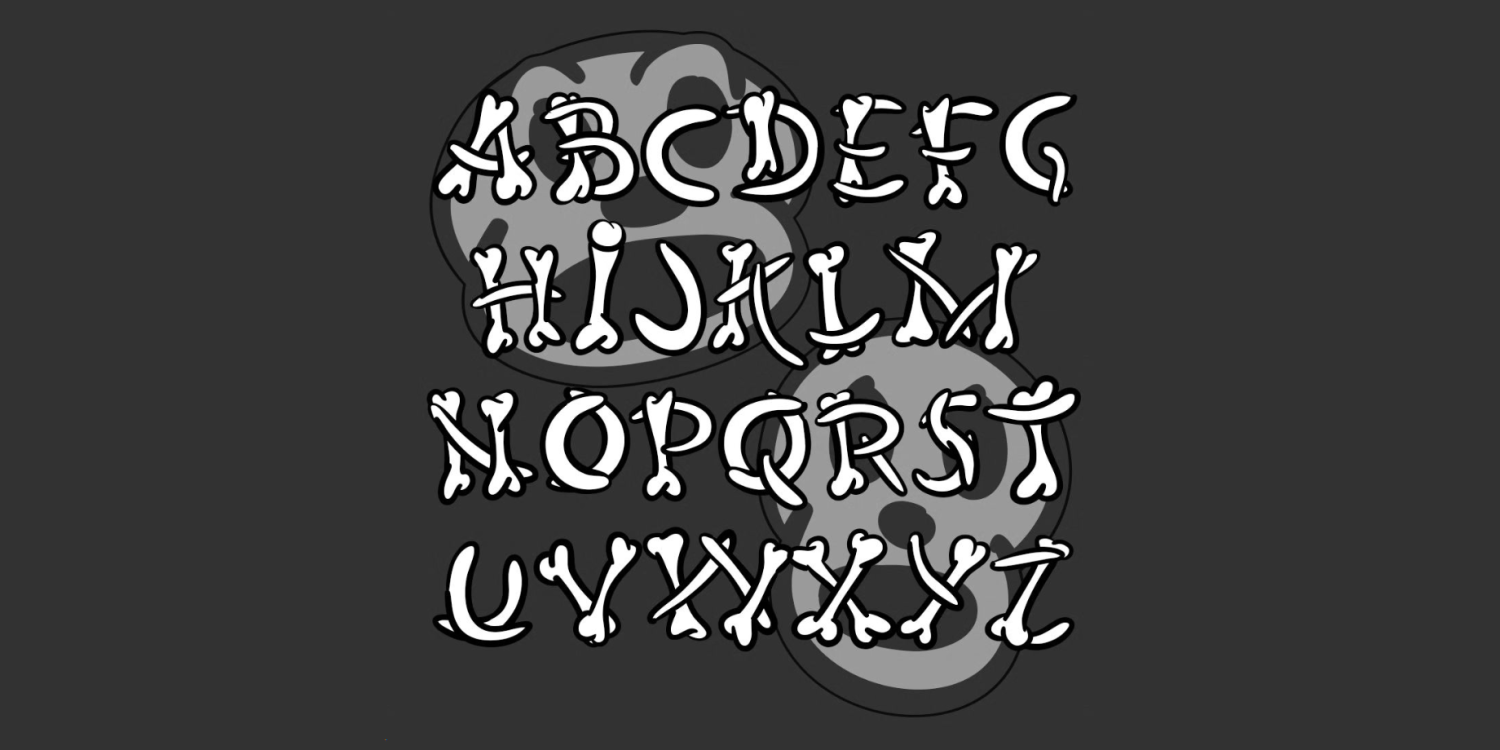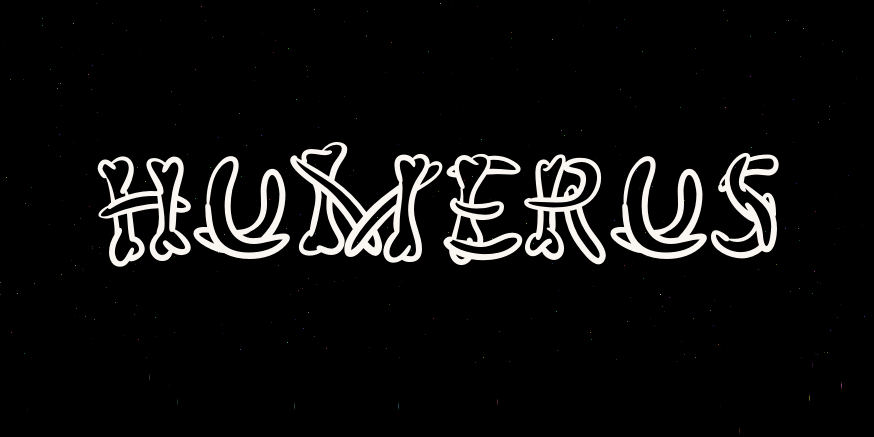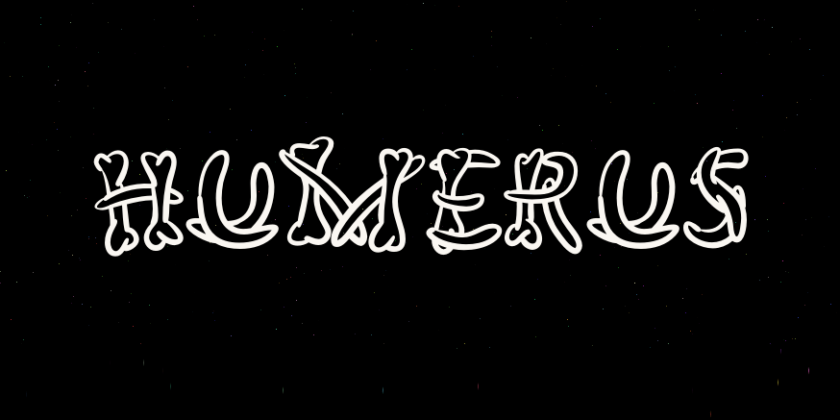
Humerus
About Humerus
Humerus is a funny/spooky font with letters composed of human bones. It could have been horrific, but it's not, in the spirit of Halloween. The caps lean slightly left, the lowercase slightly right. If YoU tYpE LiKe ThIs you get the best effect. Includes…